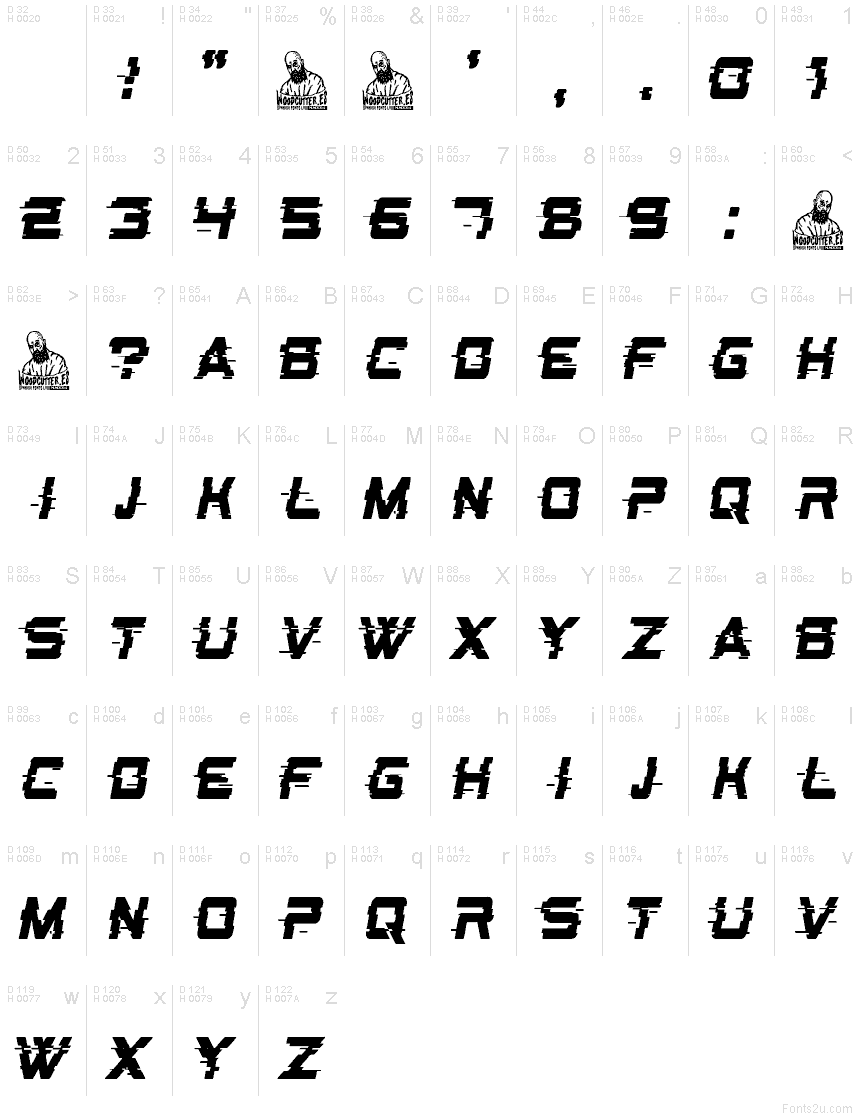
Future Glitch
Future Glitch font by Woodcutter is a bold and expanded display font that features a distorted and fragmented appearance. It displays digital distortion, futuristic vibes, an edgy aesthetic, cyberpunk influences, and effects reminiscent of glitchy digital displays. The font has uppercase characters with distinct strokes often interrupted by glitches.
This free glitch display font will fit perfectly in projects such as gaming posters, app interfaces for games or tech-related tools, movie posters for sci-fi films, music album covers or festival ads and posters about techno music. Use it as the primary typeface for branding tech start-ups or writing memorable advertising slogans against contrasting backgrounds.